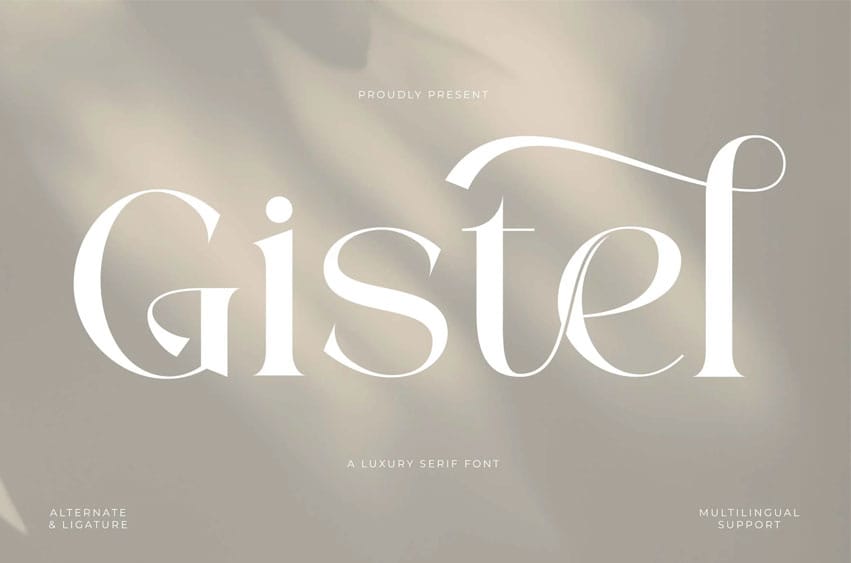
Gistel Font
Gistel Font is an elegant, beautiful, and modern Serif. With its modern and minimalist look, Gistel brings a classy ​​and clean style to your projects such as websites, modern logos, brand identities, social media quotes, wedding stationery, magazines, and more! Gistel features unique and classy capital letters A to Z and also comes with unique alternates making Gistel a beautiful font that can be customized for various projects and jobs you want.
Gistel is perfect for: logos, brands, wedding invitations, business cards, greeting cards, posters, magazines, social media, agenda prints, and websites.
• Uppercase and lowercase letters
• Multilingual Characters
• Numbers & punctuation
• Alternative styles and ligatures (on some fonts)